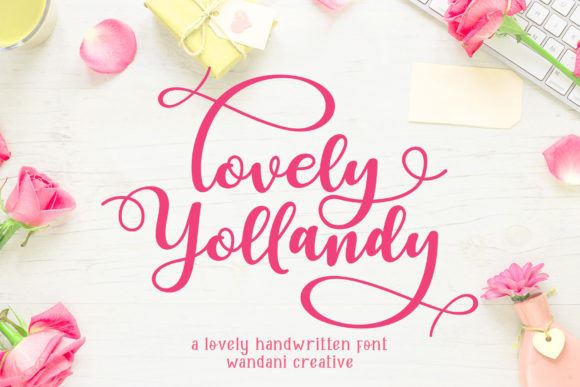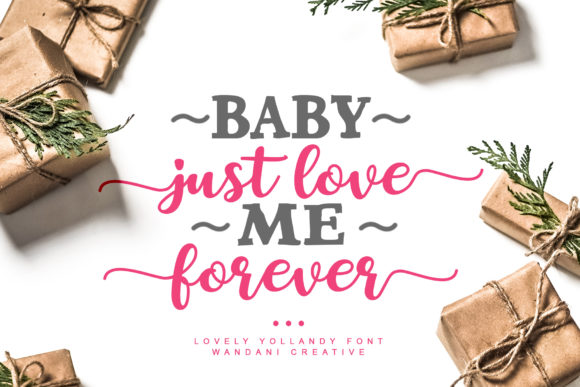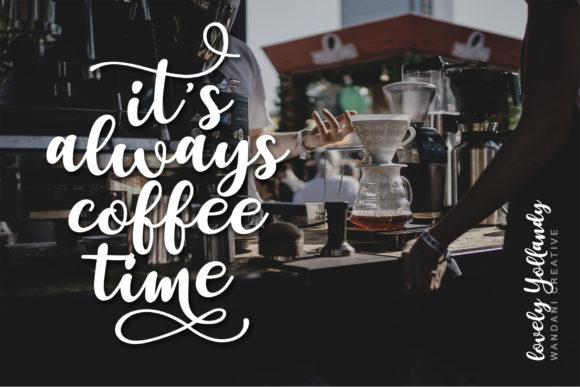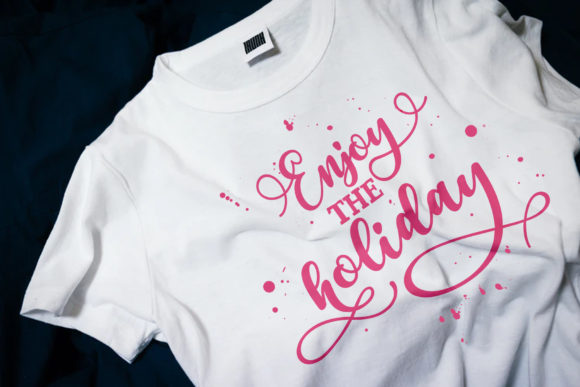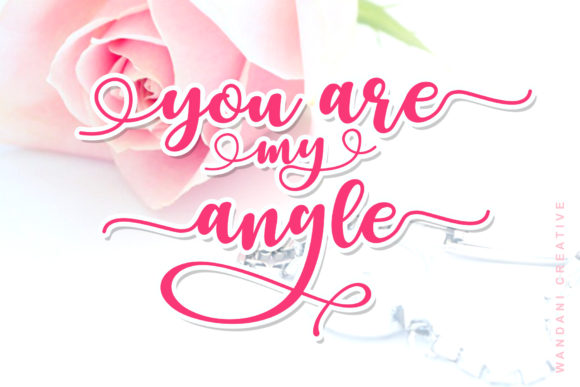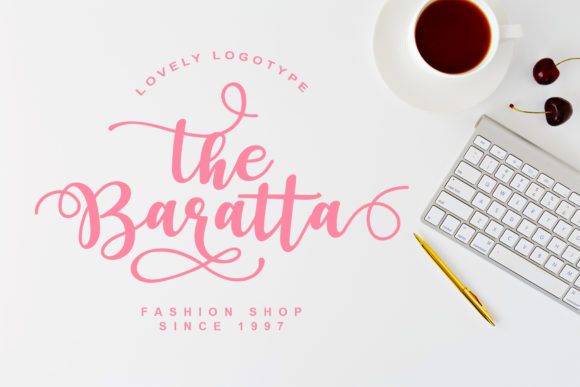
Lovely Yollandy Font
About Lovely Yollandy Font
Lovely Yollandy is an incredibly sweet and charming script font, perfect for taking any crafting project to the next level.